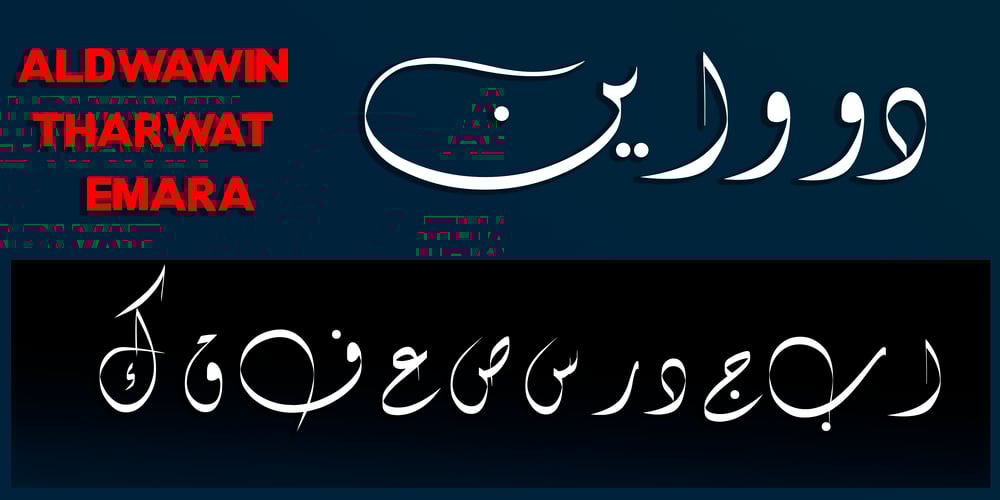
TE Aldwawin
TE Aldwawin font
TE Aldwawin Font Family was designed by Tharwat Mohamed Emara and published by Tharwat Emara. TE Aldwawin contains 1 styles and family package options. Features of TE ALDWAWIN font with his high ability according to the letter’s requirements.Diwani calligraphy is characterized by the convergence of letters, and their contiguity through one path, with the exception of some letters that must deviate from their path in order to move away from the monotony, leading to a horizon characterized by magnificence and beauty, flexibility and elegance in flow.Diwani calligraphy is characterized by being soft and malleable, and fits most writings.Suitable for most writings and is flexible in writing, The calligraphy was concerned with official books sent between kings and sultans, books of appointments to prominent positions, imitation of high positions, and special statements and orders issued by kings and princes.Write major names for books, and write ads.